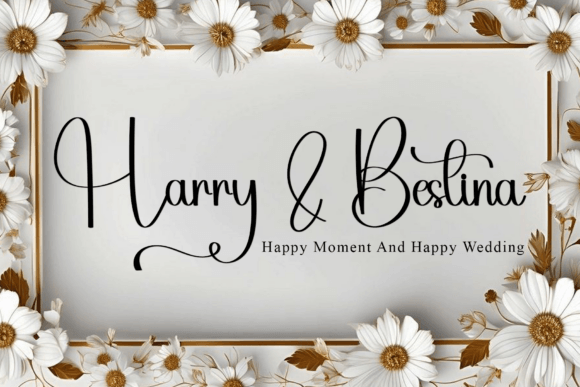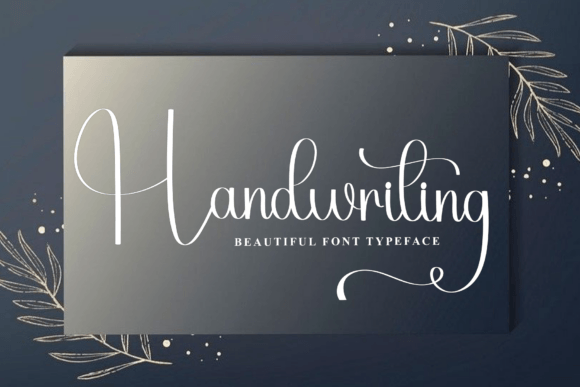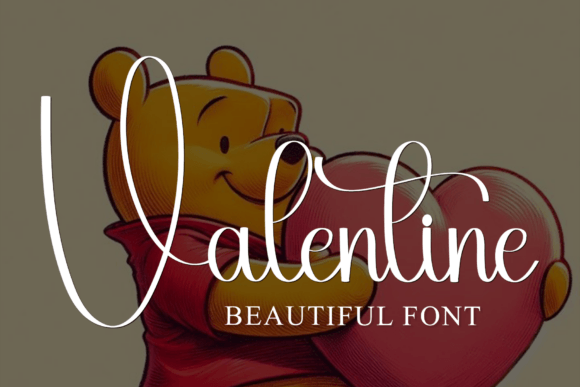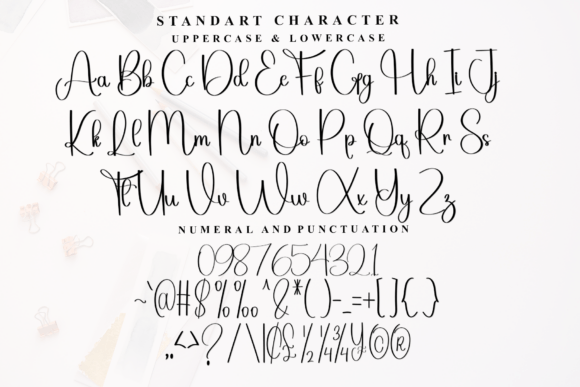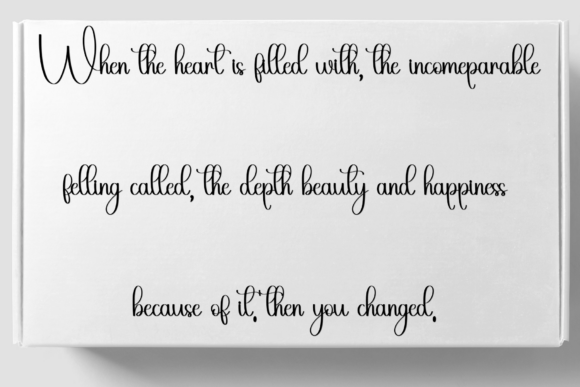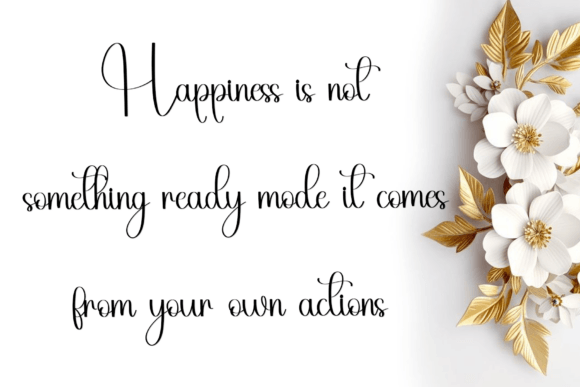
Introduction to Hey Father Font
As a designer, there’s nothing quite like the rush of creating something truly special – the moment when all the elements come together, and your project starts to shine. It’s a feeling that’s hard to put into words, but for many of us, it’s what makes all the hard work worth it. For me, that moment often comes when I’m working on a new design project and I stumble upon the perfect font – the one that elevates my work from good to great. Recently, I’ve fallen head over heels for the Hey Father Font, and I’m excited to share it with you.
About the Hey Father Font
Hey Father is an exquisite handwritten font that’s perfect for adding a touch of personality to your designs. With its classy calligraphic influences and contemporary feel, it’s a true design resource that’s sure to become a favorite. Whether you’re working on a creative project that requires a high-quality font or simply need a stylish addition to your design toolkit, the Hey Father Font is an excellent choice.
Why Choose the Hey Father Font?
Key Features of Hey Father Font
- High-quality design resource for creative projects: Hey Father Font offers a unique and stylish typography solution for designers and artists.
- Large character set: The font includes a wide range of characters, including uppercase and lowercase letters, numbers, and punctuation marks.
- Perfect for creative projects: Hey Father Font is ideal for use in creative projects such as logo designs, branding materials, and marketing materials.
Honest Review: Hey Father Font
I recently came across the Hey Father Font, and I must say, it’s a great addition to any designer’s toolkit. One of the standout features of this font is its unique, high-quality design. It’s perfect for those creative projects where you want to add a touch of personality.
- High quality: The font is crisp and clean, with a transparent background that makes it easy to work with.
- Unique design: The Hey Father Font has a distinctive style that’s sure to add some visual interest to your designs.
While the Hey Father Font is a great choice for many projects, there are a few limitations to be aware of:
- ⚠️ Limited font styles: Compared to some other fonts, the Hey Father Font has a relatively small number of styles to choose from.
- ⚠️ May not be suitable for all audiences: The font’s unique design may not be to everyone’s taste.
For a high-quality design, use the Hey Father Font with a transparent background to create a clean and minimalist look. Experiment with different font sizes and colors to add depth and visual interest to your design.